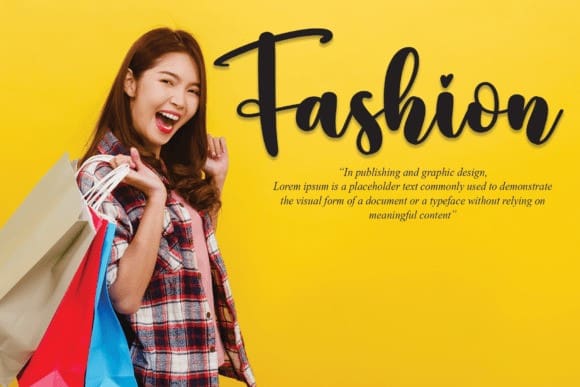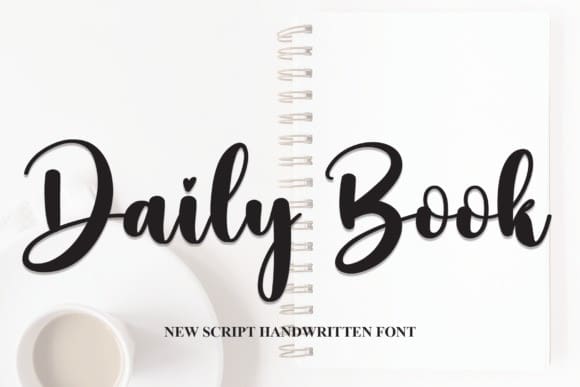
Daily Book Font
Daily Book Font, perfect for wall displays, wedding invitations, social media post logos, advertisements, product packaging, product designs, labels, photography, watermarks, invitations, stationery, and any project that requires a handwritten taste.